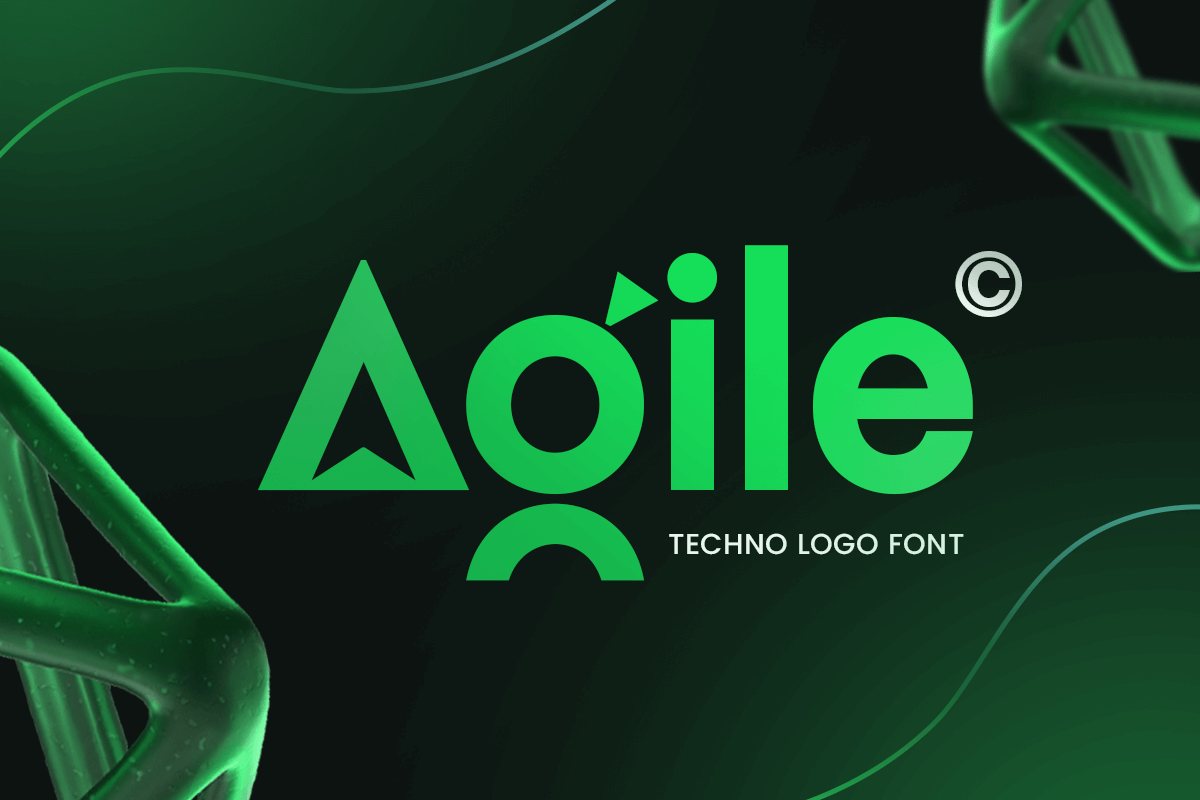
Agile
-Techno Logo FontAgile - Techno Logo Font
Agile is a modern techno-style display font made to power up logos, gaming visuals, digital interfaces, and tech branding. With sharp angles, dynamic letterforms, and futuristic shapes, Agile gives your designs a fast-paced, cutting-edge feel—ideal for esports, startup tech, apps, and innovation-driven projects.
Its compact, impactful structure ensures legibility while delivering a bold identity. Whether used in large-scale titles or logo marks, Agile brings high energy and digital attitude that commands attention and reinforces modern aesthetics.
Speed up your brand’s visual language with Agile—a font designed for motion, momentum, and modern technology.
Agile Techno Logo Font Features:
Futuristic Techno Style
Great for Logos, Esports, Apps, and Tech Branding